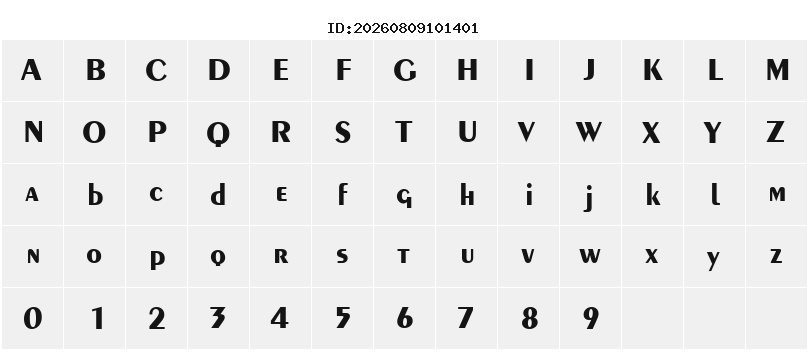
Penwin Preview
• Font Name: Penwin
• Full Font Name: Penwin Bold
About Penwin.ttf
Penwin.ttf is a modern, elegant sans-serif font designed for ultimate readability and visual harmony. Perfect for branding, headlines, web design, and print materials.